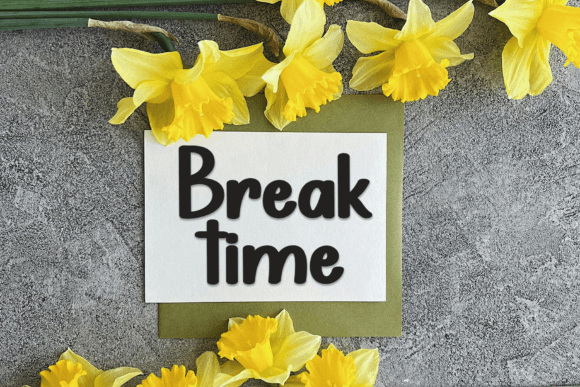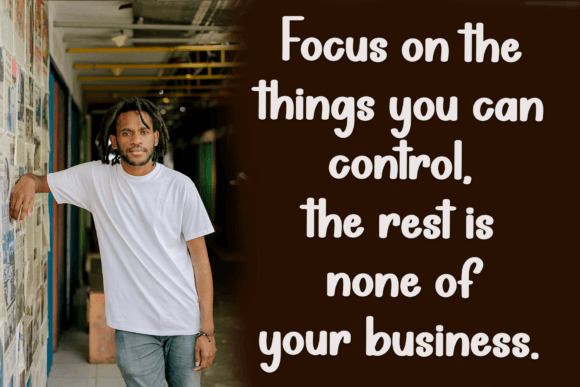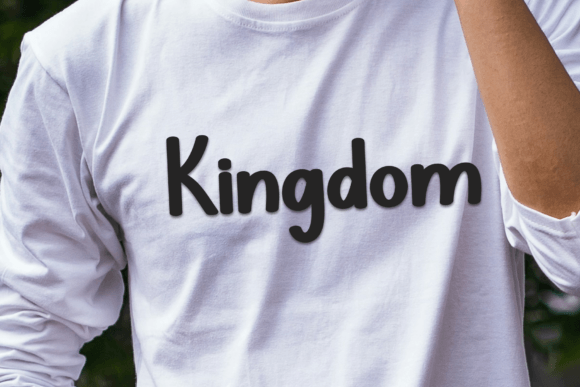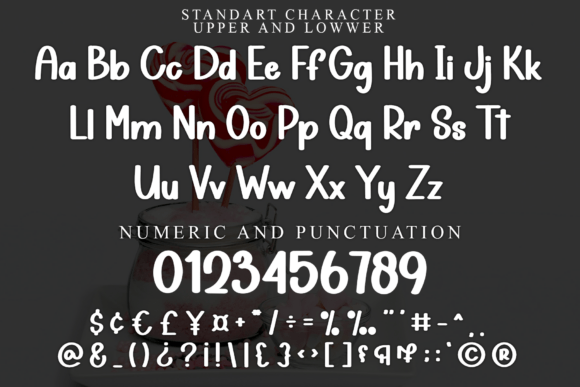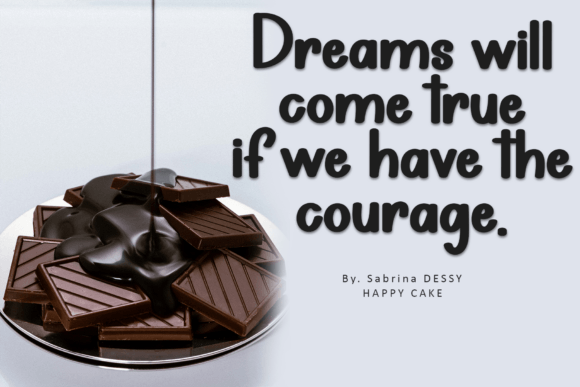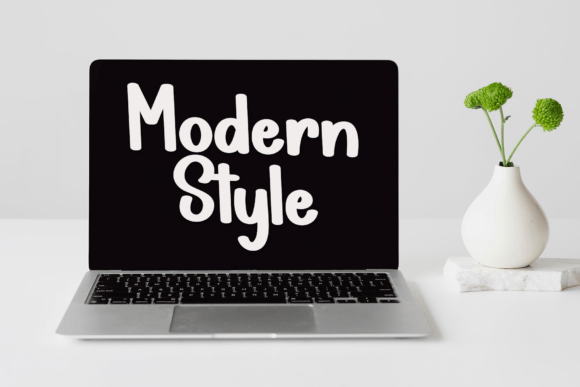
Introducing Art Bold Font: The Ultimate Display Font for Impactful Designs
Are you looking for a font that can add a touch of creativity and impact to your designs? Look no further than Art Bold Font, a strong and eye-catching display font that’s perfect for headlines, posters, and any project that needs to grab attention. With its thick letters and modern style, Art Bold Font is sure to make your designs stand out from the crowd.
What is Art Bold Font?
Art Bold Font is a display font that’s designed to make a statement. Its bold lines and modern style make it perfect for use in headlines, titles, and other design elements where you want to grab attention. The font is easy to read, even from a distance, making it ideal for use in posters, billboards, and other large-format designs.
Key Features of Art Bold Font
- Strong and eye-catching: Art Bold Font is designed to stand out with its thick letters and modern style.
- Perfect for headlines and titles: The font is ideal for use in headlines, titles, and other design elements where you want to grab attention.
- Easy to read: The bold lines make it easy to read from a distance, making it perfect for use in posters, billboards, and other large-format designs.
- Modern style: The font has a modern style that’s perfect for designers and crafters who want to add a touch of creativity and impact to their projects.
Uses for Art Bold Font
Art Bold Font is a versatile font that can be used in a variety of design projects, including:
- Posters: Use Art Bold Font to create eye-catching posters that grab attention.
- Headlines: Use the font to create bold and attention-grabbing headlines for your website, blog, or social media channels.
- Logos: Use Art Bold Font to create a bold and memorable logo for your brand.
- Signs: Use the font to create signs that are easy to read from a distance.
- Marketing materials: Use Art Bold Font to create marketing materials that stand out from the crowd, such as brochures, flyers, and business cards.
Benefits of Using Art Bold Font
There are many benefits to using Art Bold Font in your designs, including:
- Increased visibility: The bold lines and modern style of Art Bold Font make it easy to read from a distance, increasing the visibility of your designs.
- Improved impact: The font adds a touch of creativity and impact to your designs, making them more engaging and memorable.
- Versatility: Art Bold Font can be used in a variety of design projects, from posters and headlines to logos and signs.
Tips for Using Art Bold Font
Here are a few tips for using Art Bold Font in your designs:
- Use it sparingly: Art Bold Font is a bold font, so use it sparingly to avoid overwhelming your designs.
- Pair it with other fonts: Pair Art Bold Font with other fonts to create visual interest and add depth to your designs.
- Experiment with colors: Experiment with different colors to find the perfect combination for your designs.
- Keep it simple: Keep your designs simple and clean to ensure that Art Bold Font is the focal point.
Art Bold Font is a strong and eye-catching display font that’s perfect for designers and crafters who want to add a touch of creativity and impact to their projects. With its thick letters and modern style, Art Bold Font is sure to make your designs stand out from the crowd. Whether you’re creating posters, headlines, logos, or signs, Art Bold Font is a versatile font that can help you achieve your design goals.